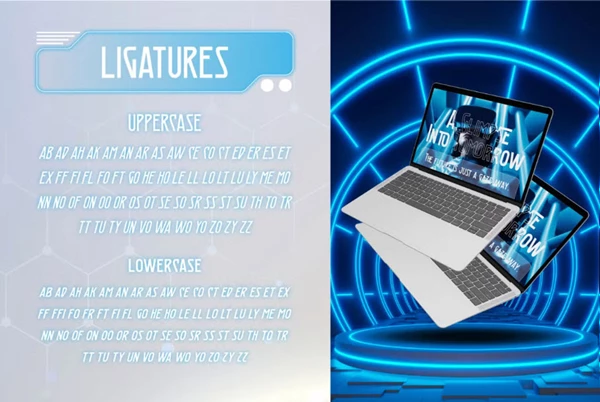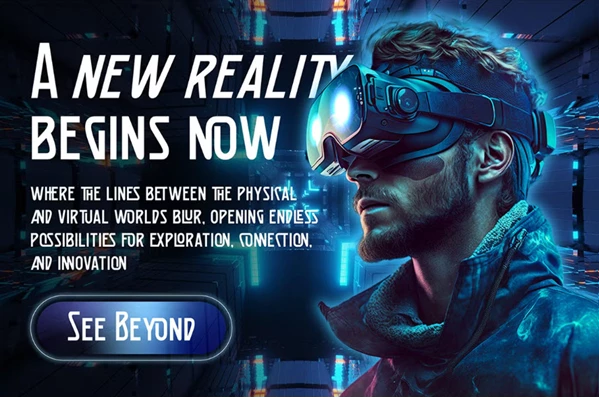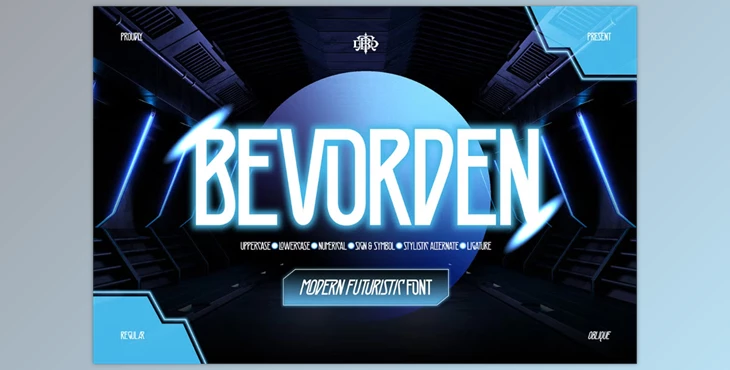
Bevorden Font:
The Bevorden font is the latest typeface designed for creative leaders and innovators. This bold display font is sleek and futuristic, perfect for any virtual reality projects, sci-fi, or future-tech theme. Bevorden will make sure your projects stand out and feel distinctive. His fonts are perfectly crafted for branding, headlines, logos, and even game covers. This font will guarantee that your projects feel modern and have clear readability due to its geometric design.